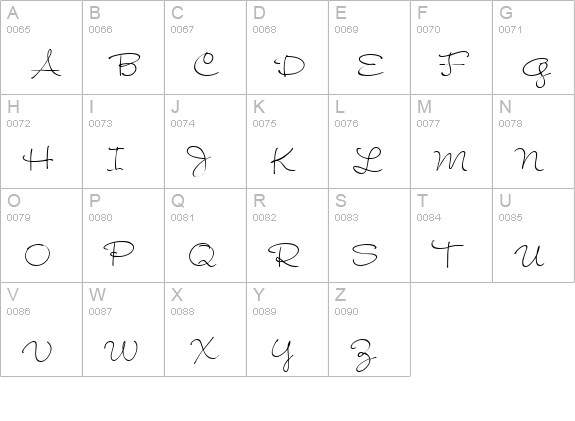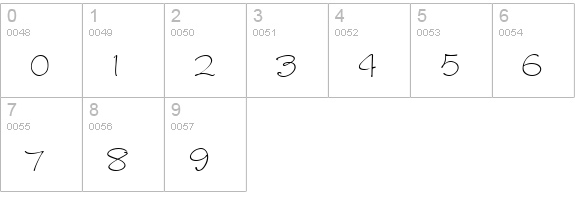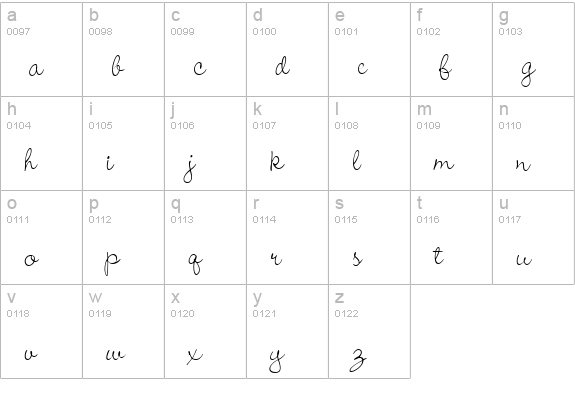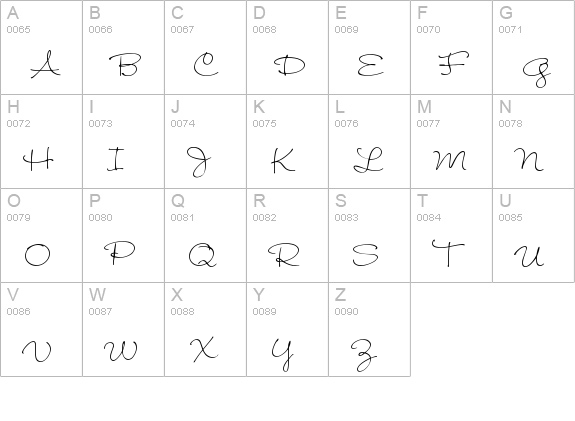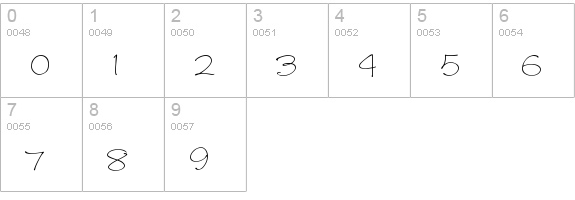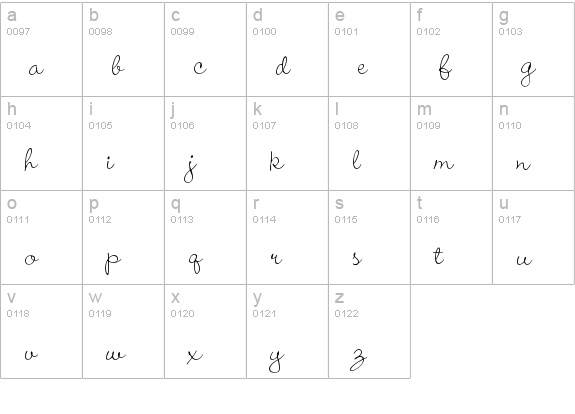
Dagobert Font Details
Dagobert font is a modern and stylish typeface that exudes sophistication and elegance. Its sleek lines and contemporary design make it perfect for a wide range of projects, from branding to editorial design. With its unique blend of classic and modern elements, Dagobert font is sure to make your text stand out and leave a lasting impression. The best part is that Dagobert font is available for free download at FontsMarket.com. This means you can easily add this versatile font to your collection without any cost. Whether you're a designer looking to enhance your projects or a business owner wanting to elevate your branding, Dagobert font is a fantastic choice that won't break the bank. Download it today and start using this stylish font to make your designs pop!